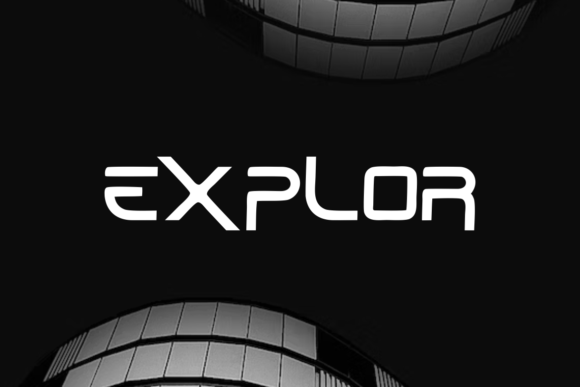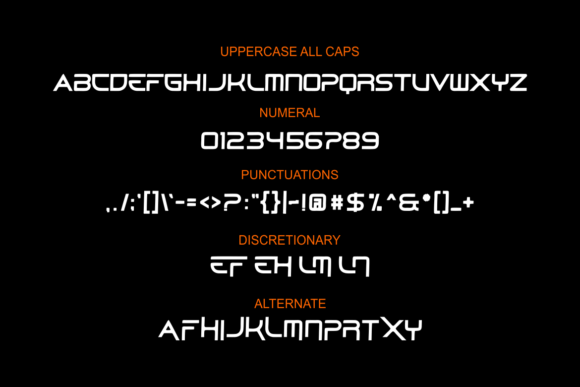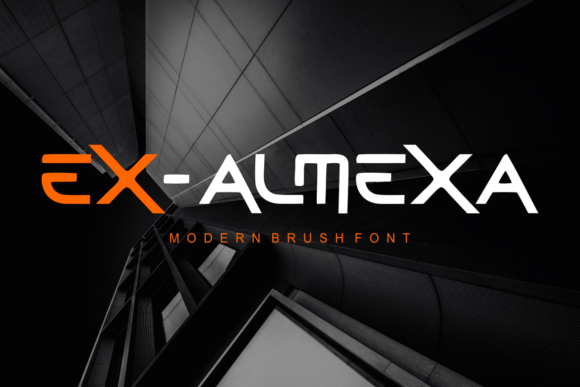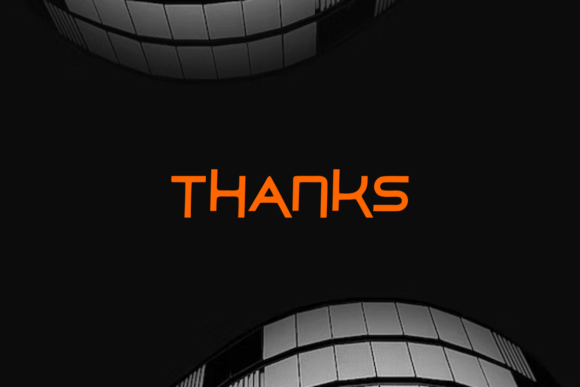
Introducing Ex Almexa Font: The Ultimate Display Font for Bold Branding
In the world of typography, a font can make or break a brand’s identity. A well-crafted font can elevate a brand’s visual appeal, convey its personality, and leave a lasting impression on its audience. If you’re a designer, craftsperson, or entrepreneur looking for a bold and authentic display font, look no further than Ex Almexa Font. In this article, we’ll dive into the features, benefits, and uses of Ex Almexa Font, and explore why it’s the perfect choice for your next branding project.
What is Ex Almexa Font?
Ex Almexa Font is a bold and authentic display font designed to make a statement. Its unique blend of modern and classic elements creates a distinctive look that’s both eye-catching and memorable. The font’s bold strokes, sharp edges, and elegant curves make it perfect for headlines, titles, and short text passages. Whether you’re creating a logo, t-shirt design, or social media graphic, Ex Almexa Font is sure to turn heads.
Key Features of Ex Almexa Font
- Bold and Authentic: Ex Almexa Font boasts a bold and authentic design that’s perfect for making a statement.
- Display Font: This font is specifically designed for display purposes, making it ideal for headlines, titles, and short text passages.
- Versatile: Ex Almexa Font can be used for a wide range of branding projects, from logos and t-shirts to posters and social media graphics.
- Elegant Curves: The font’s elegant curves add a touch of sophistication and refinement to any design.
- Easy to Read: Despite its bold design, Ex Almexa Font is easy to read, even at smaller sizes.
Benefits of Using Ex Almexa Font
So why choose Ex Almexa Font for your next branding project? Here are just a few benefits of using this versatile display font:
- Stand Out from the Crowd: Ex Almexa Font’s bold design ensures that your brand will stand out from the competition.
- Convey Confidence and Authority: The font’s confident and authoritative design conveys a sense of professionalism and expertise.
- Easy to Pair with Other Fonts: Ex Almexa Font pairs well with a wide range of fonts, making it easy to create a cohesive brand identity.
- Scalable: The font’s clear design ensures that it remains legible even at smaller sizes, making it perfect for use on a variety of mediums.
Uses of Ex Almexa Font
Ex Almexa Font is a versatile display font that can be used for a wide range of branding projects, including:
- Logo Design: Create a bold and memorable logo that showcases your brand’s personality.
- T-Shirt Printing: Design eye-catching t-shirts that showcase your brand’s style and attitude.
- Posters and Flyers: Create bold and attention-grabbing posters and flyers that promote your brand or event.
- Social Media Graphics: Design engaging social media graphics that showcase your brand’s personality and style.